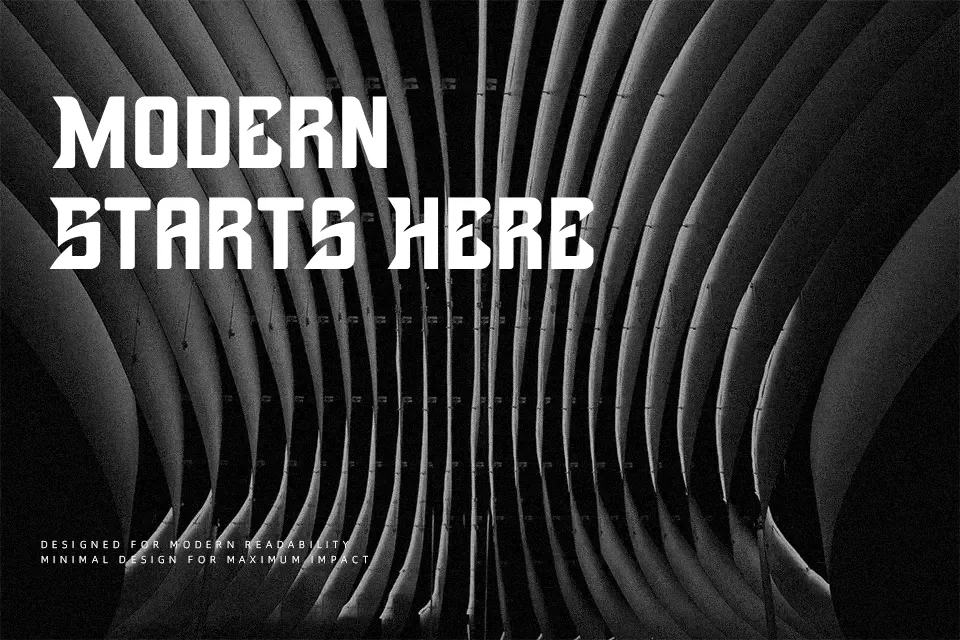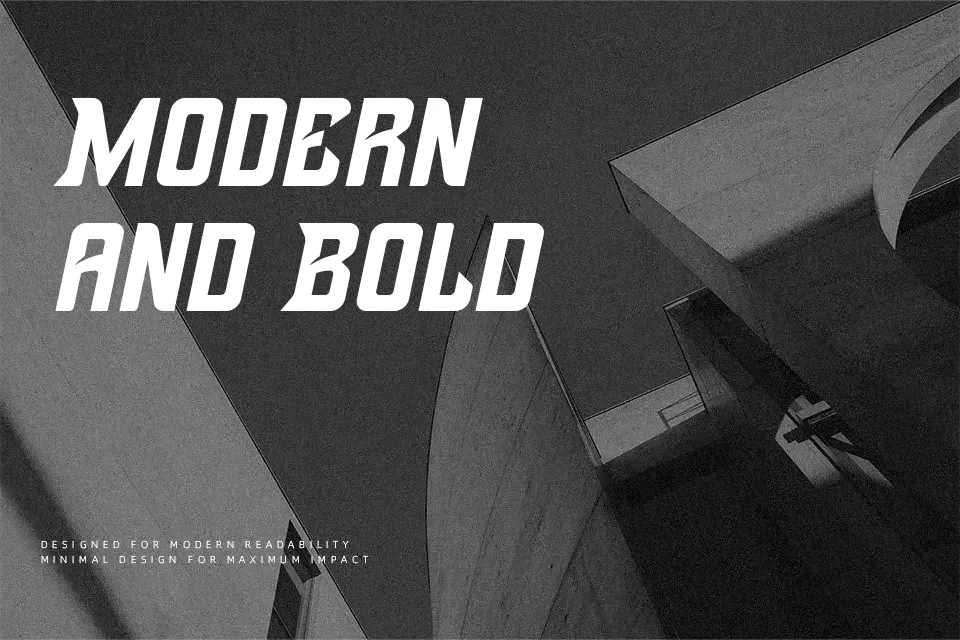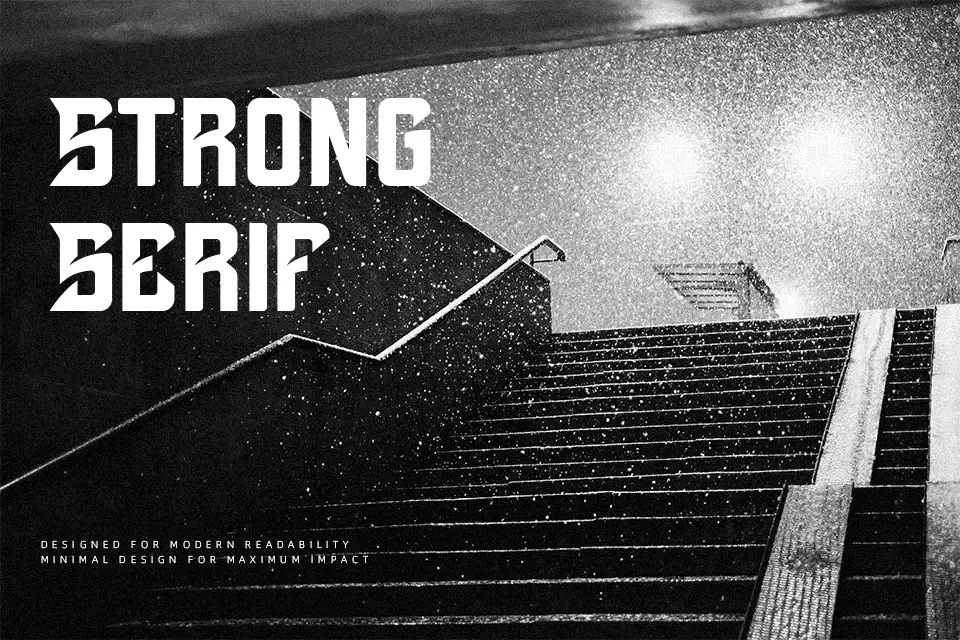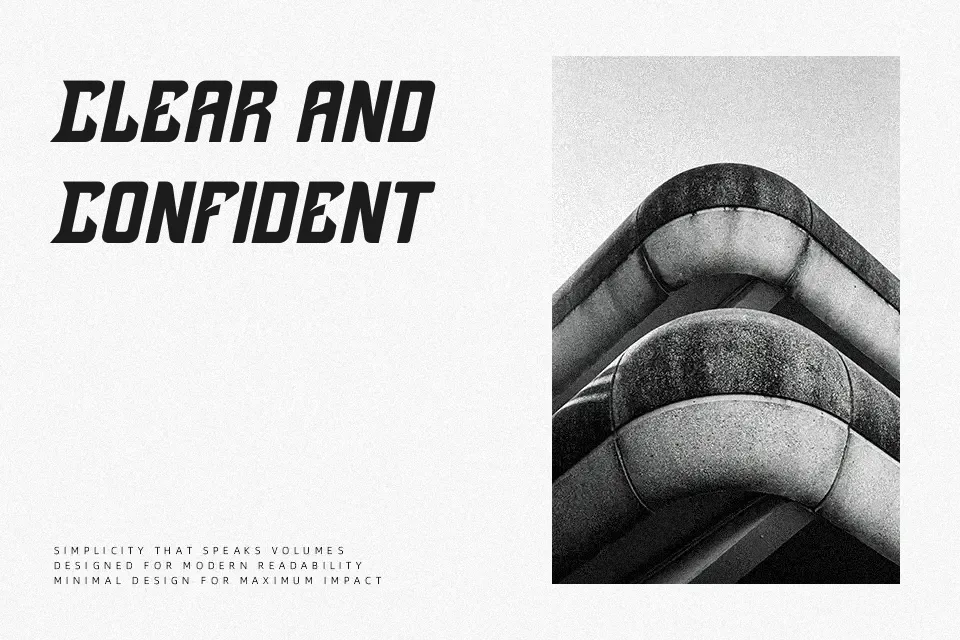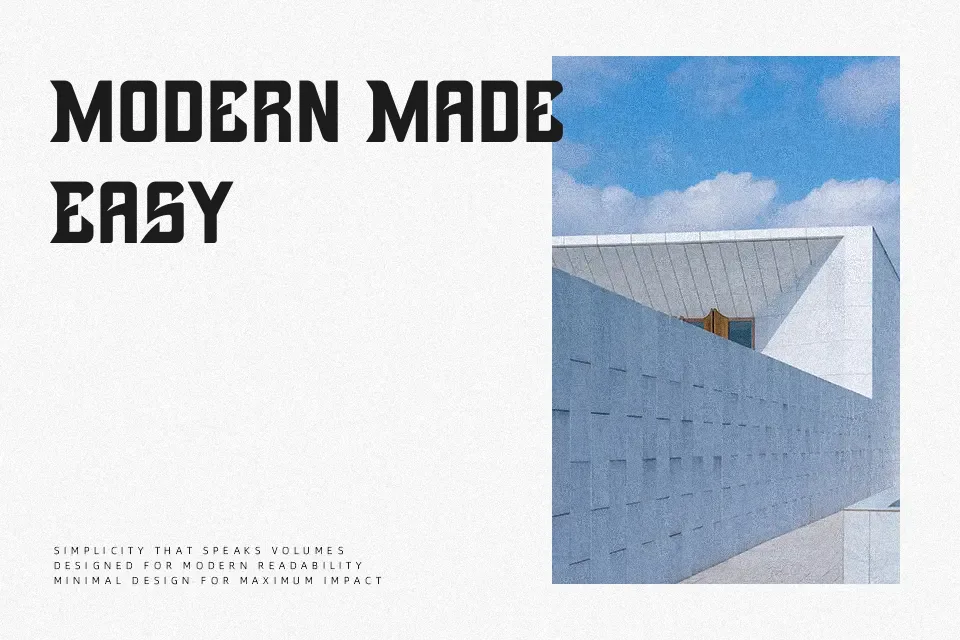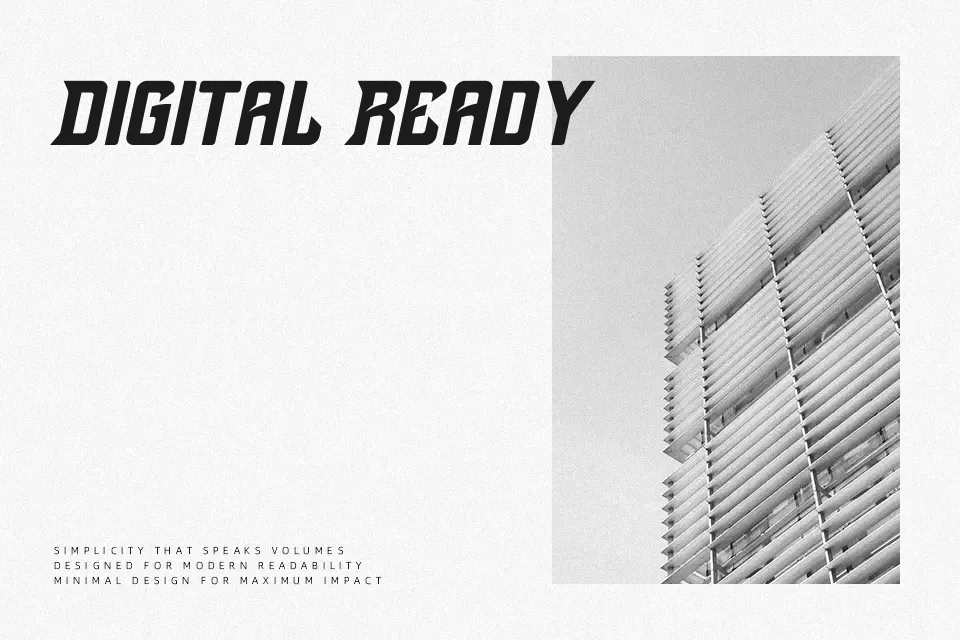
Brutals Font
Designed by Kong Font
Brutals Font is a commanding display typeface characterized by its solid strokes, well-balanced proportions, and a distinctly modern geometric structure. The sturdy letterforms create an authoritative presence without sacrificing readability, making the overall style feel simultaneously bold and approachable. This design shines when applied to large-scale typographic treatments like event posters, impactful logos, and digital headlines that need to capture immediate attention. Conversely, its robust nature means it often feels overwhelming if applied to dense paragraphs or lengthy editorial body text. Compared to more neutral sans-serifs, Brutals brings a subtle dynamic energy that pushes boundaries, offering designers a confident tool for contemporary campaigns.
Large event posters and banners
Contemporary brand identity and logos
Striking digital headlines
High-impact advertising campaigns
Lengthy editorial body text
Small-scale interface elements
Traditional corporate documents
Perfect for advertising, branding, and headline, with a bold and display style.